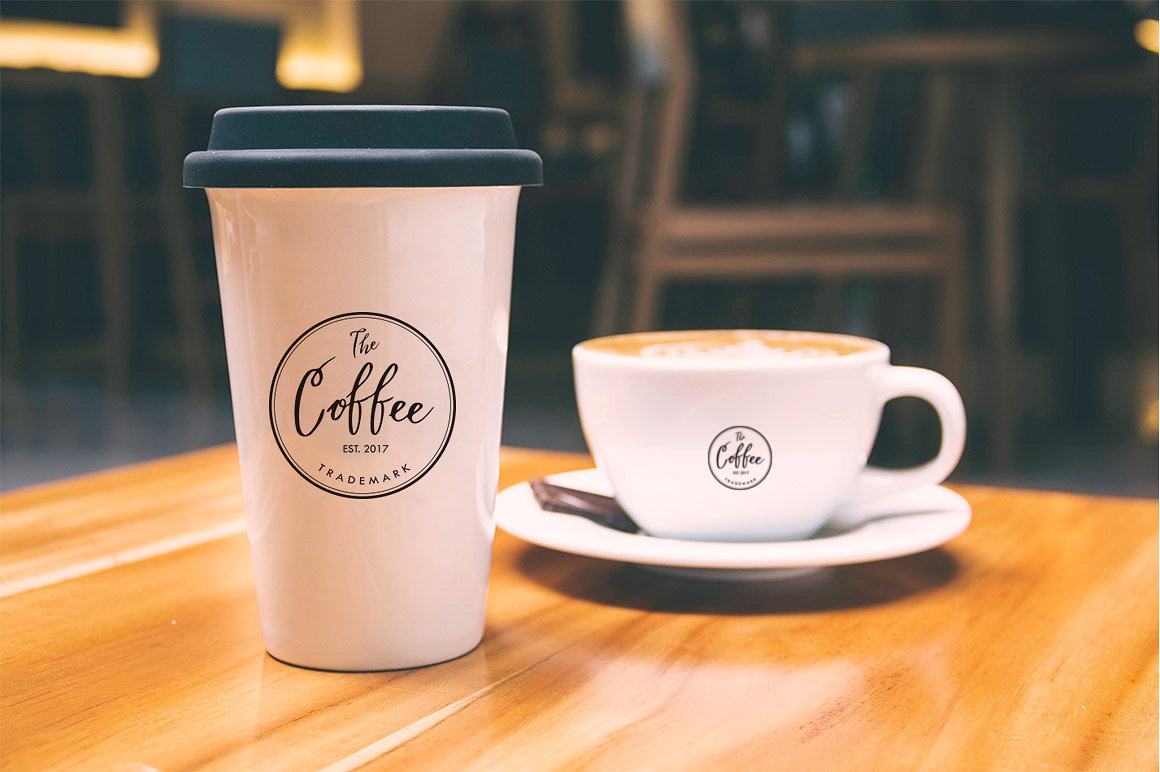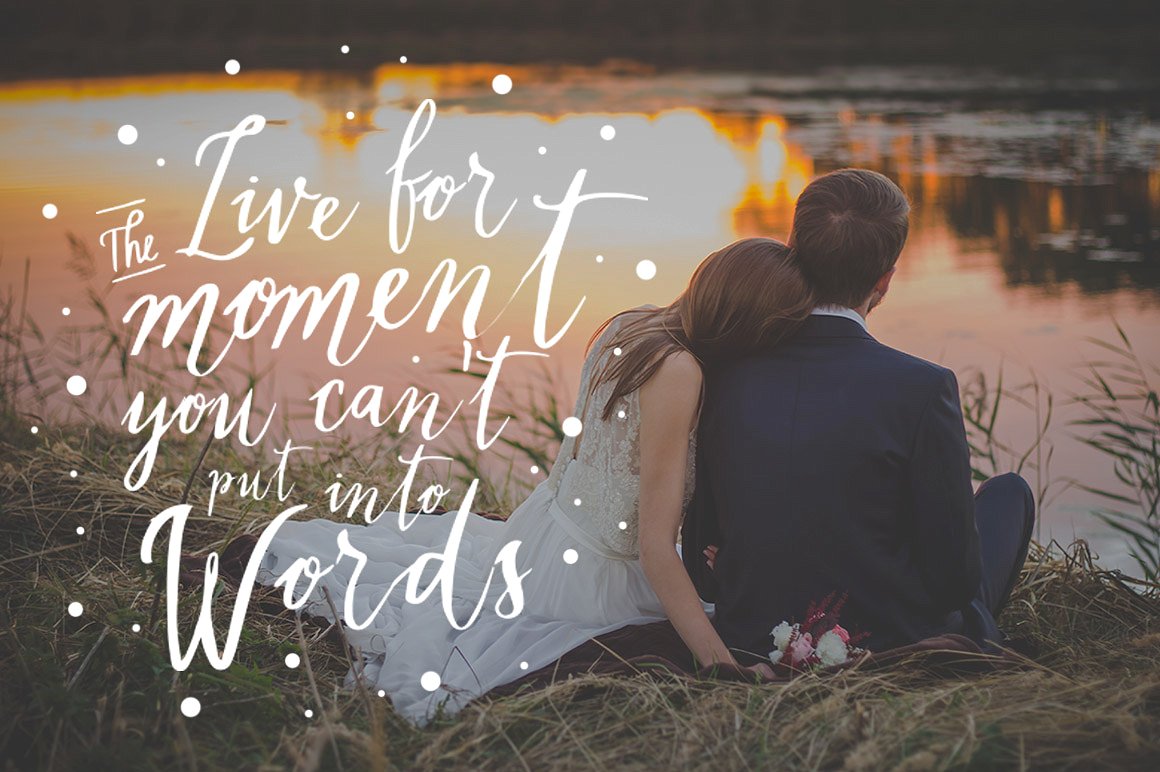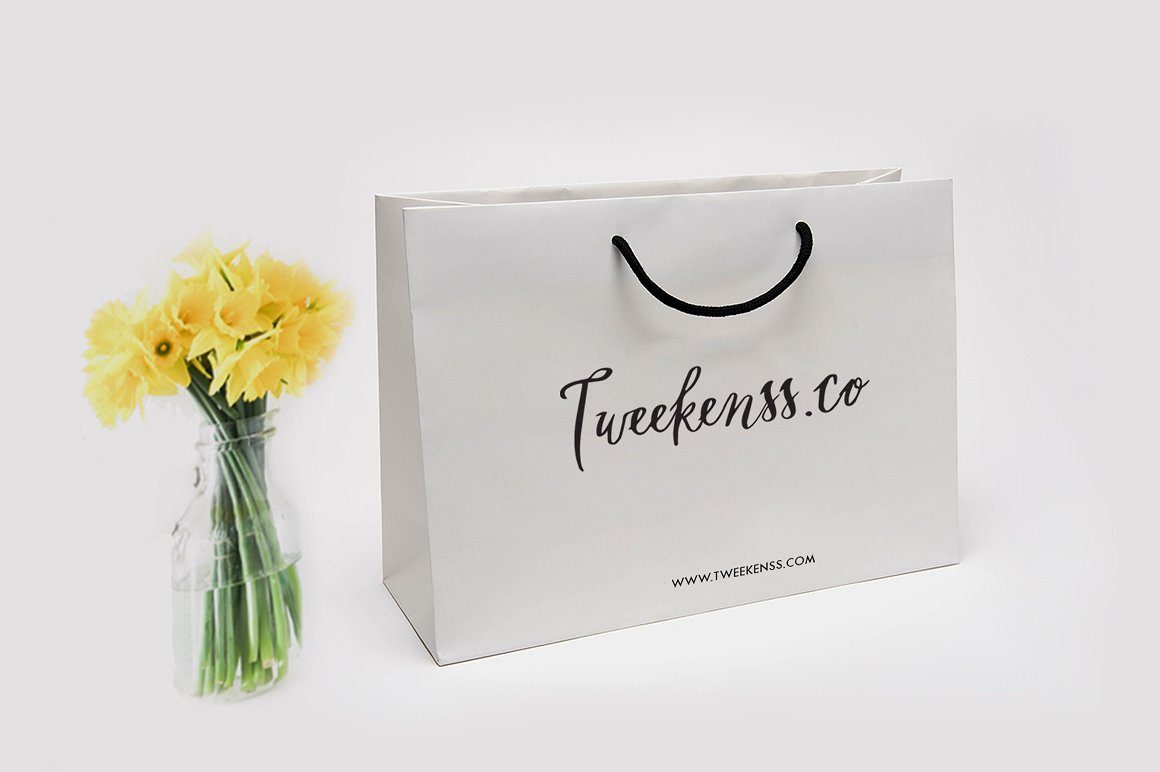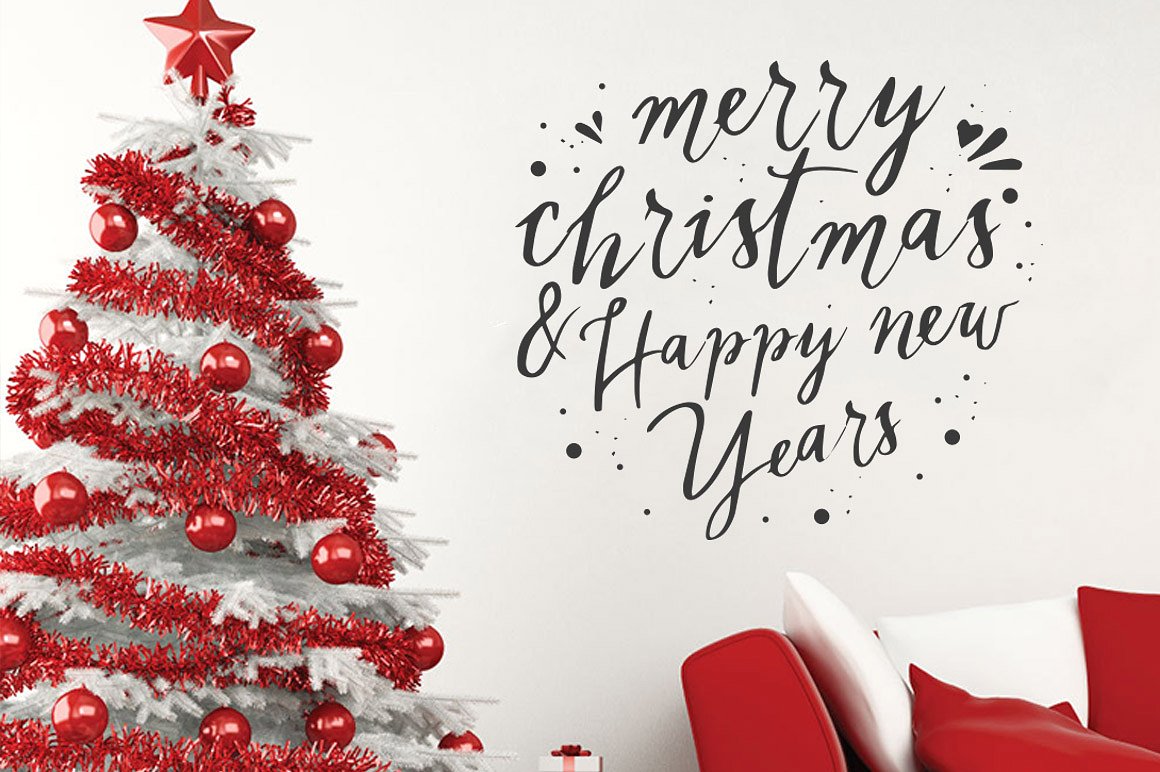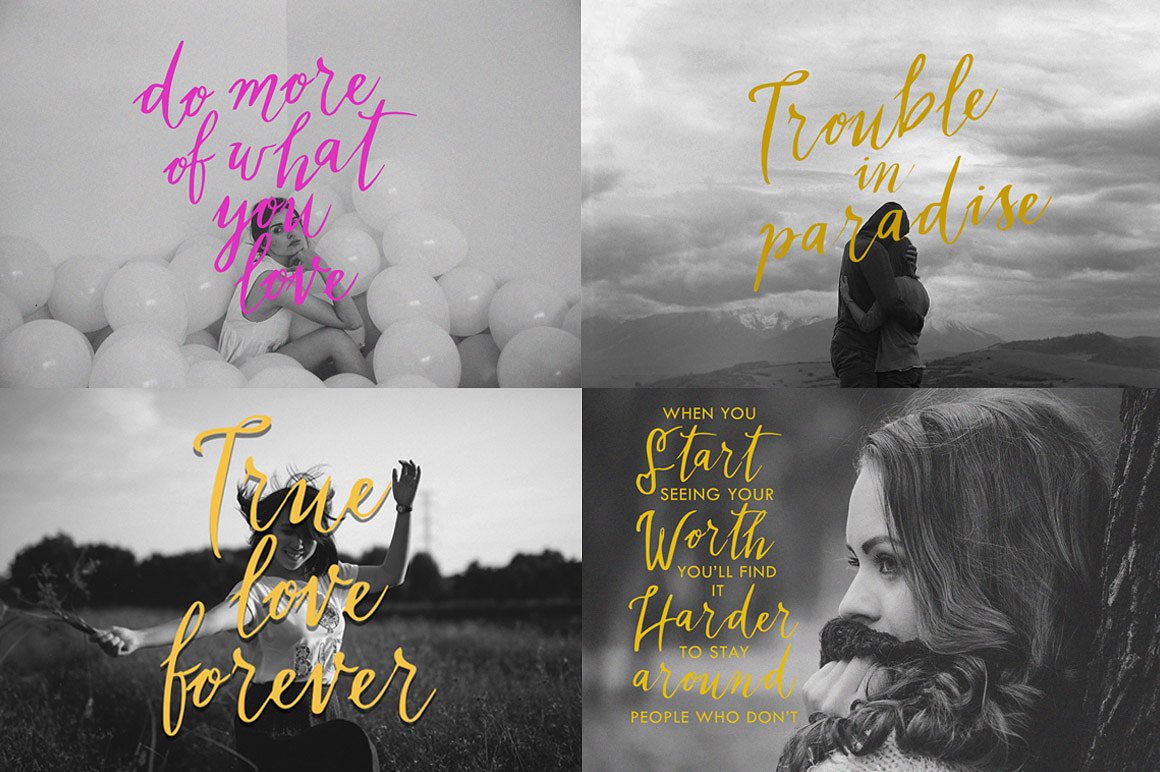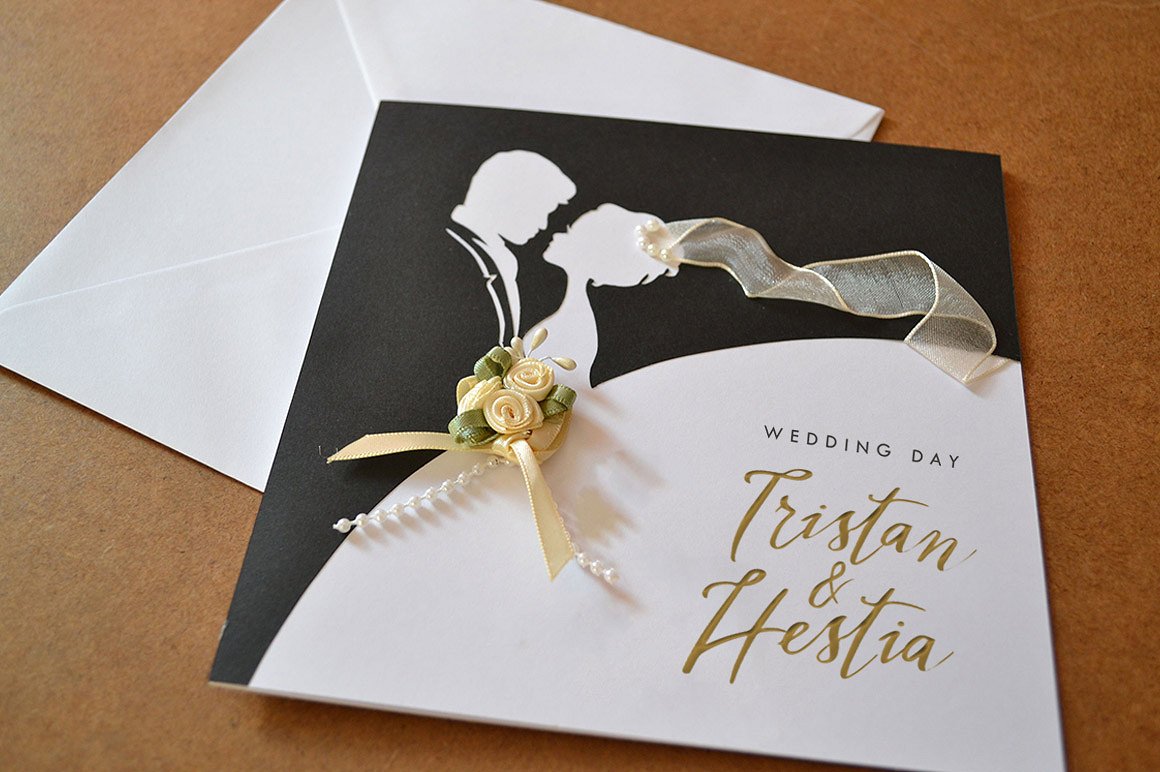
Velowley Font
About Velowley Font
Velowley is a elegant, modern hand-drawn font. This font with a calligraphy-style works perfect for lot’s of different projects.